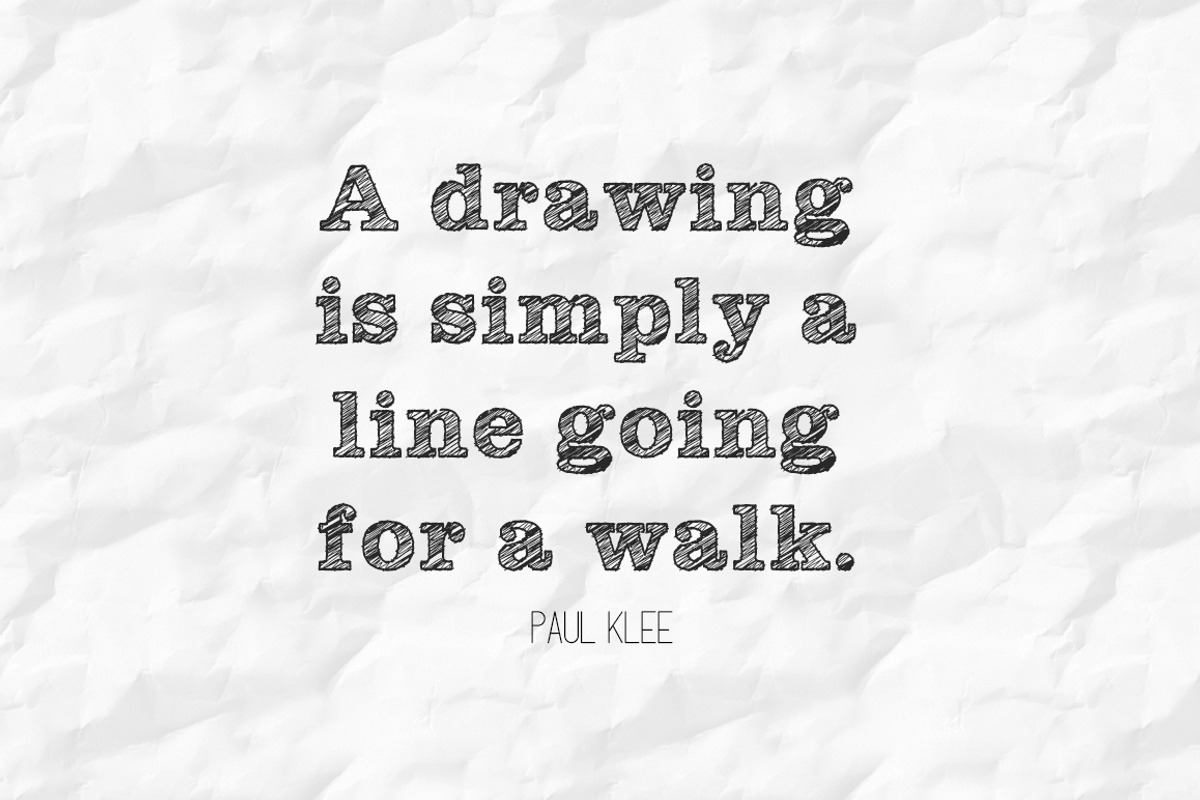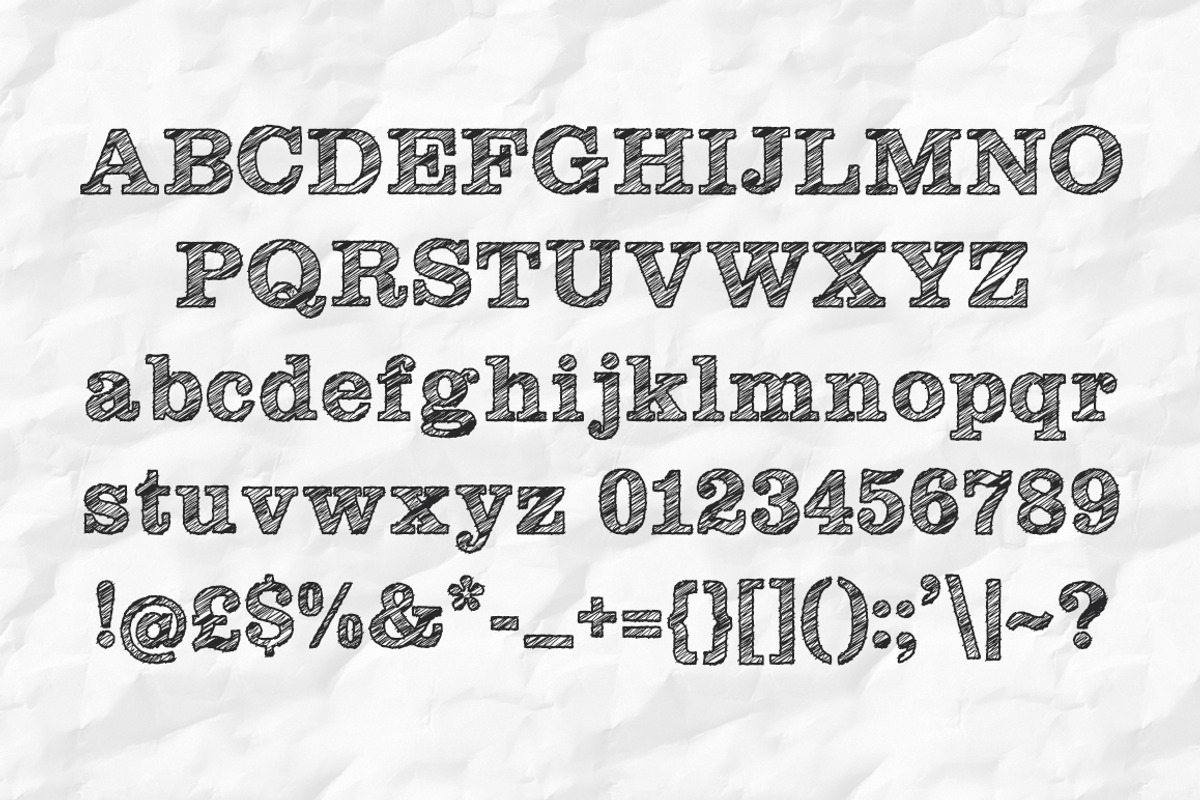
SketchSlab Web and Desktop Font
SketchSlab Web and Desktop Font by Medialoot is a font selected for branding, posters, packaging, typography.
Why SketchSlab Web and Desktop Font is worth a look
SketchSlab Web and Desktop Font by Medialoot fits naturally into Branding, posters, packaging, typography.